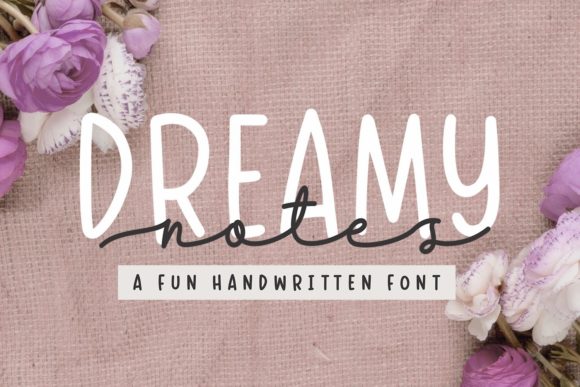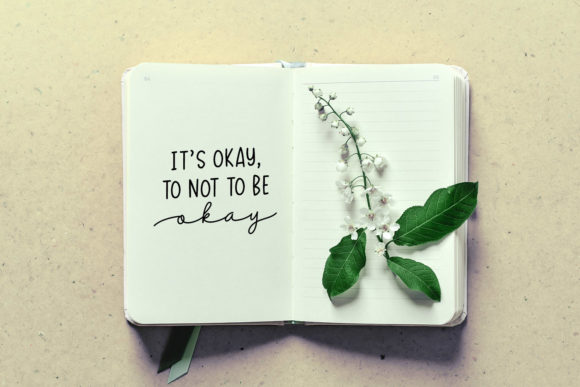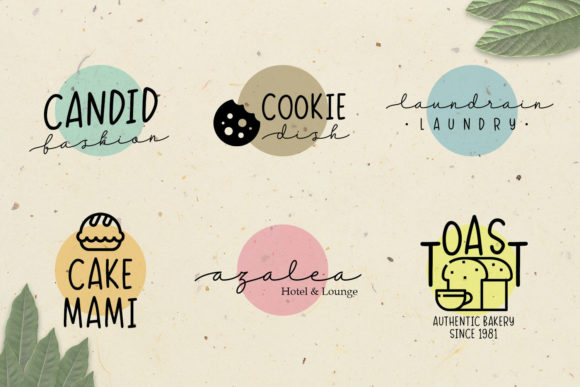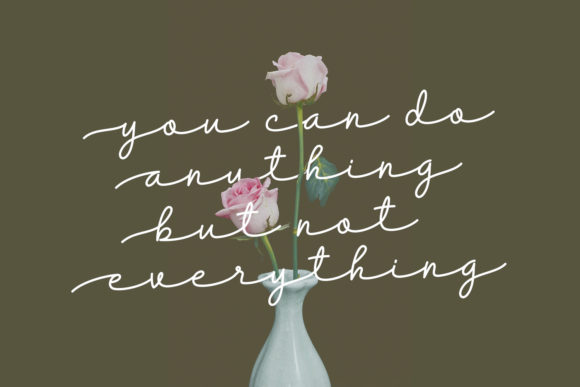
Dreamy Notes Duo Font
About the Dreamy Notes Duo Font
Step up your design game with Dreamy Notes Duo Font, a font that exudes confidence and style. The Dreamy Notes Duo is a stunning and comprehensive duo font (script and sans serif), ideal for giving your projects a branded but friendly feel. The two included styles can be combined together perfectly but are also beautiful on their own.
Dreamy Notes Duo’s script font excels in headlines, short text blocks, and branding applications where a touch of elegance and playfulness is desired. It works beautifully on invitations, logos, and social media graphics. However, avoid using it for body copy or lengthy paragraphs; its delicate nature can hinder readability. The sans-serif counterpart is ideal for supporting text, providing a clear and modern contrast to the script.
The overall personality is friendly yet sophisticated. It suits brands focused on creativity, lifestyle, or artisanal products. Consider pairing the script with a clean, geometric sans-serif for a modern feel or a classic serif for a more traditional look. Examples include pairing the script with Lato, Montserrat, or Playfair Display for a balanced aesthetic.
The sans-serif element on its own is versatile and can be used effectively in website UI elements such as buttons or short navigation labels, though extended use in body copy may still feel less ideal.